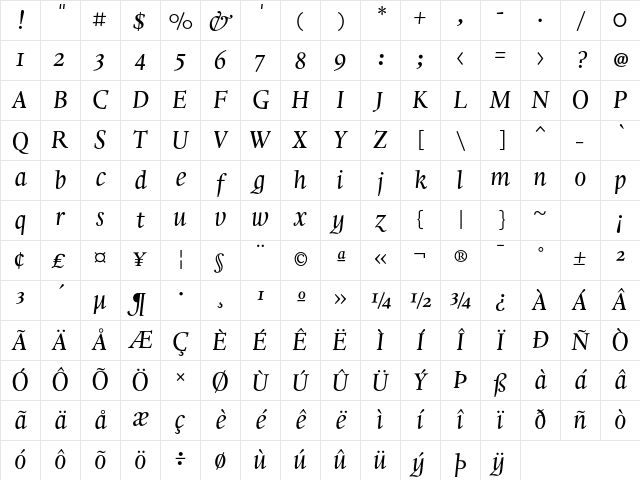
Whitenights LT Std Italic
Designer: Lars Berquist
Design Context for Whitenights LT Std
Whitenights LT Std is a composed and adaptable typeface that performs quietly and consistently across a wide range of design contexts. The slanted form adds forward momentum and visual energy. Its slender proportions lend an understated elegance to any composition.
Pro Tip: Use Whitenights LT Std for emphasis, pull quotes, and subheadings where its slanted energy can add rhythm to the layout.